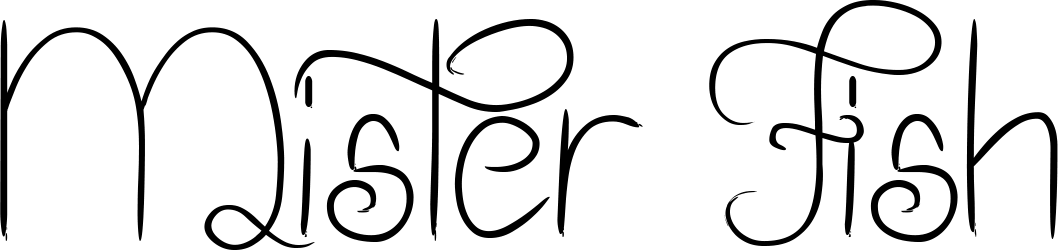
Mister Fish Font
Mister Fish font is inspired by the movement of fishes in the sea. With this cursive and marine font, you can go to the depths of the sea, and beaches and place sea creatures next to your design. Summer and beach night party flyers are some of the applications that this beach font can offer you.
Given that this script font works great in many nautical themes, it is best to download and use it in a nautical animation poster.